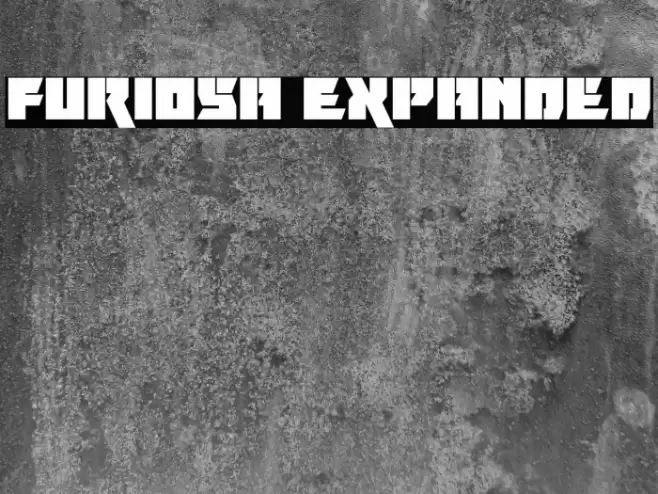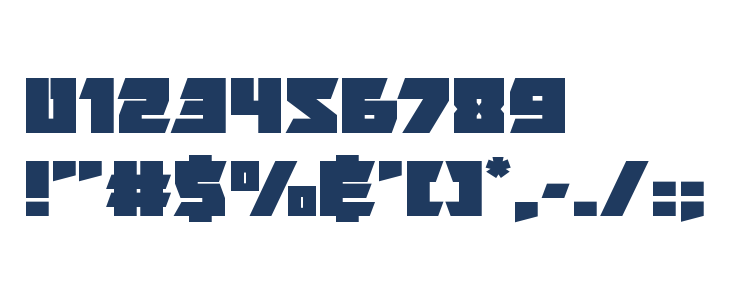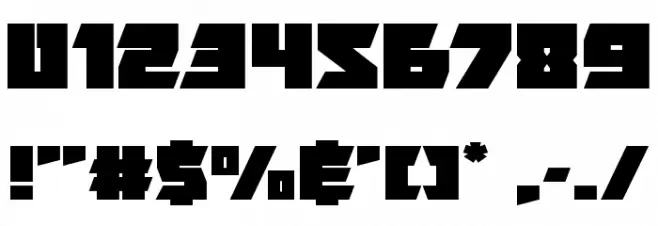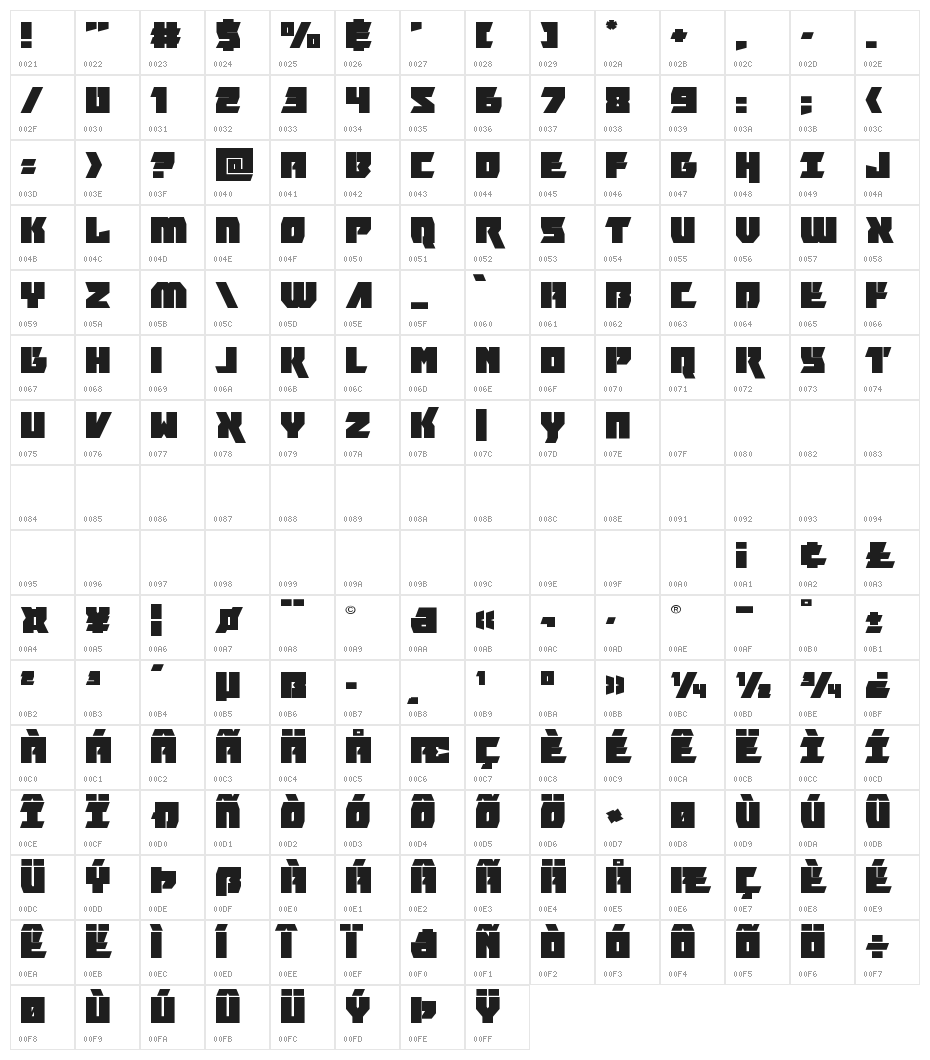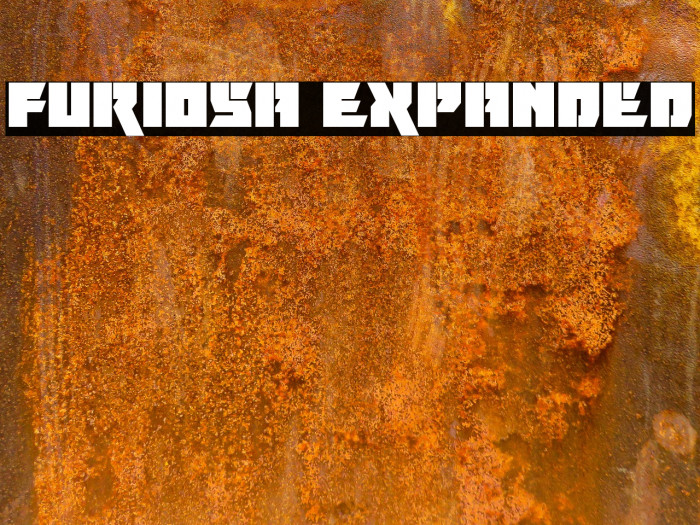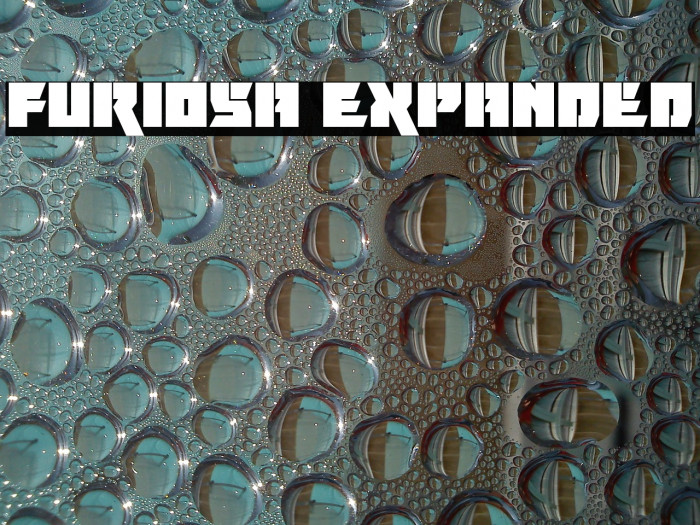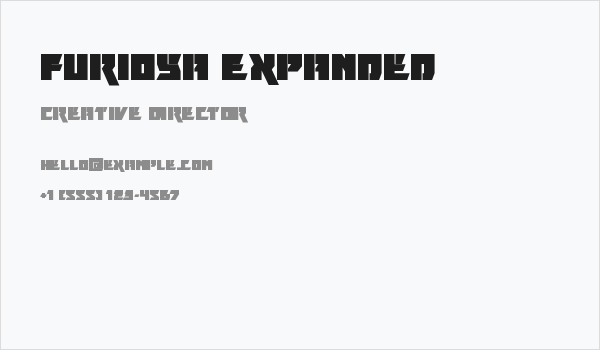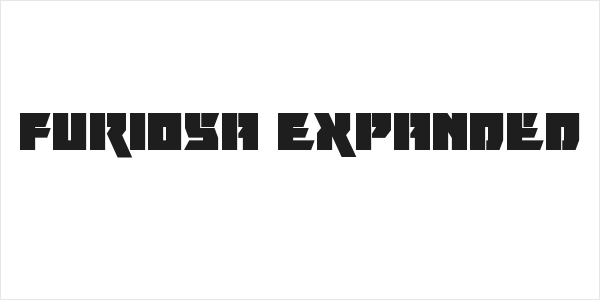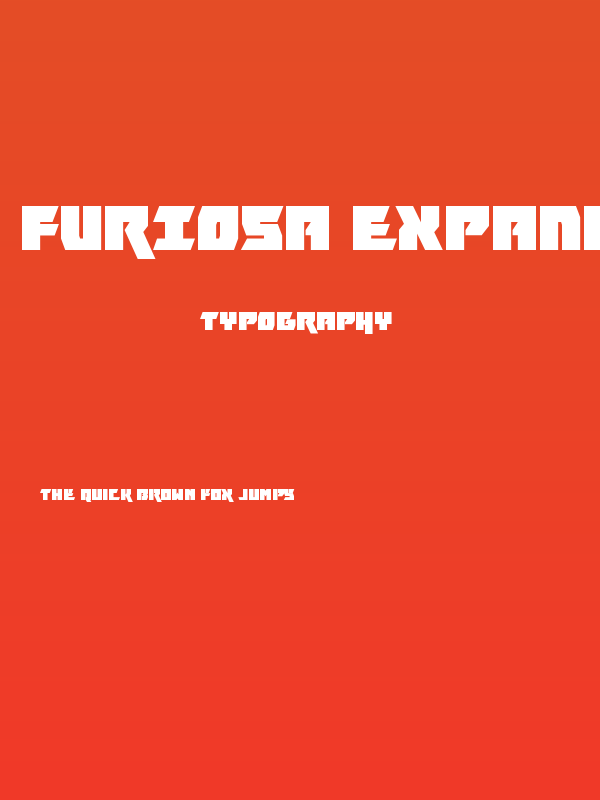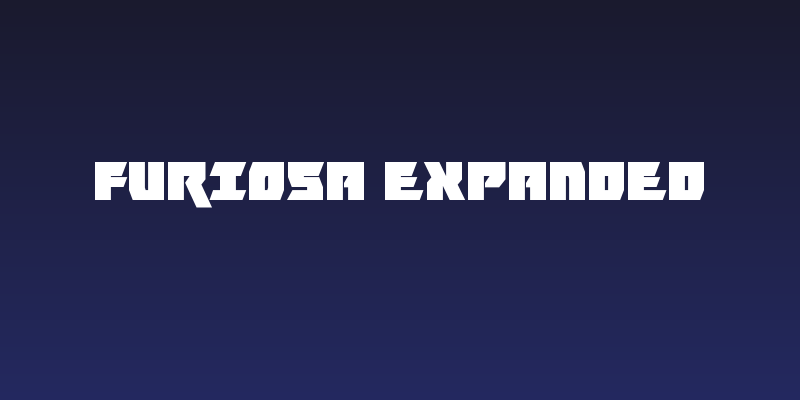
This font features a bold and striking design with a distinctly angular and geometric style. Each character is crafted with sharp edges and a blocky appearance, creating a sense of strength and impact. The uppercase and lowercase letters maintain a consistent width, enhancing the uniformity and balance of the text. Numbers and special characters follow the same bold and angular design, ensuring a cohesive look across all elements. The font's expanded width adds to its commanding presence, making it ideal for attention-grabbing headlines and titles.
- Proposed Projects: Ideal for posters, logos, video game titles, and any project requiring a strong, impactful typeface.